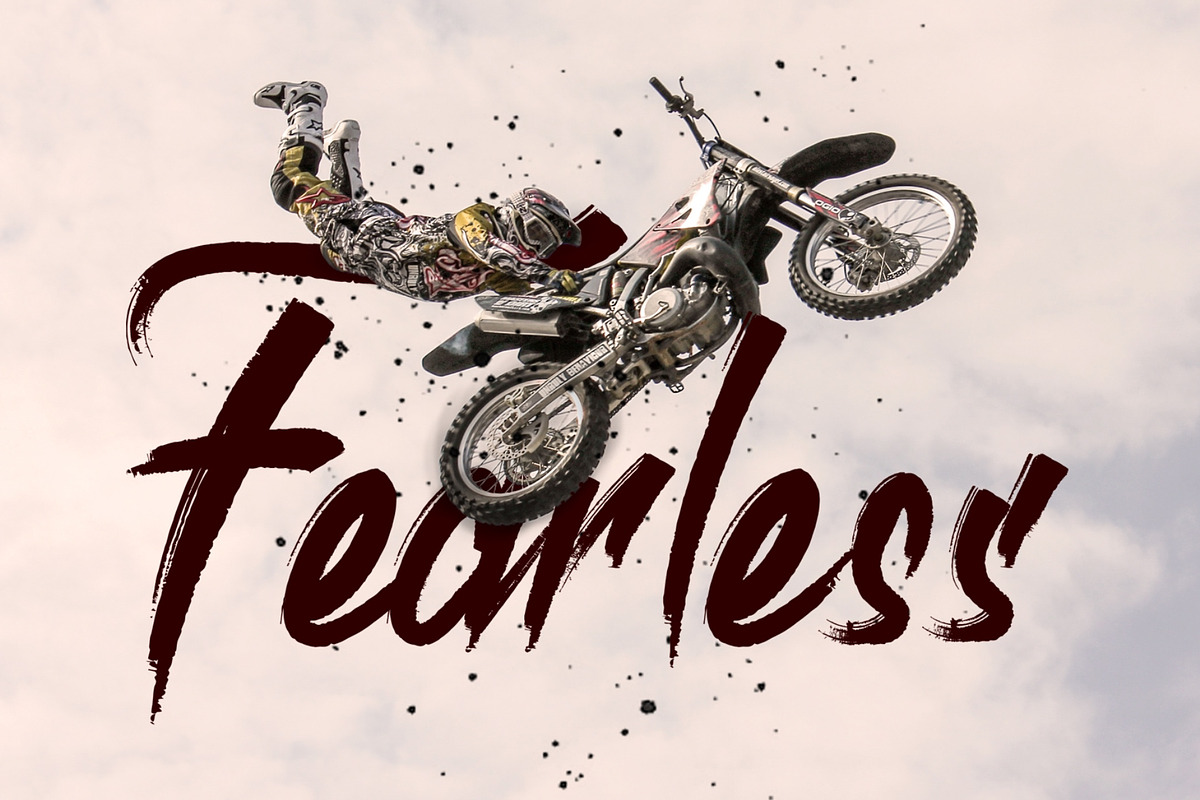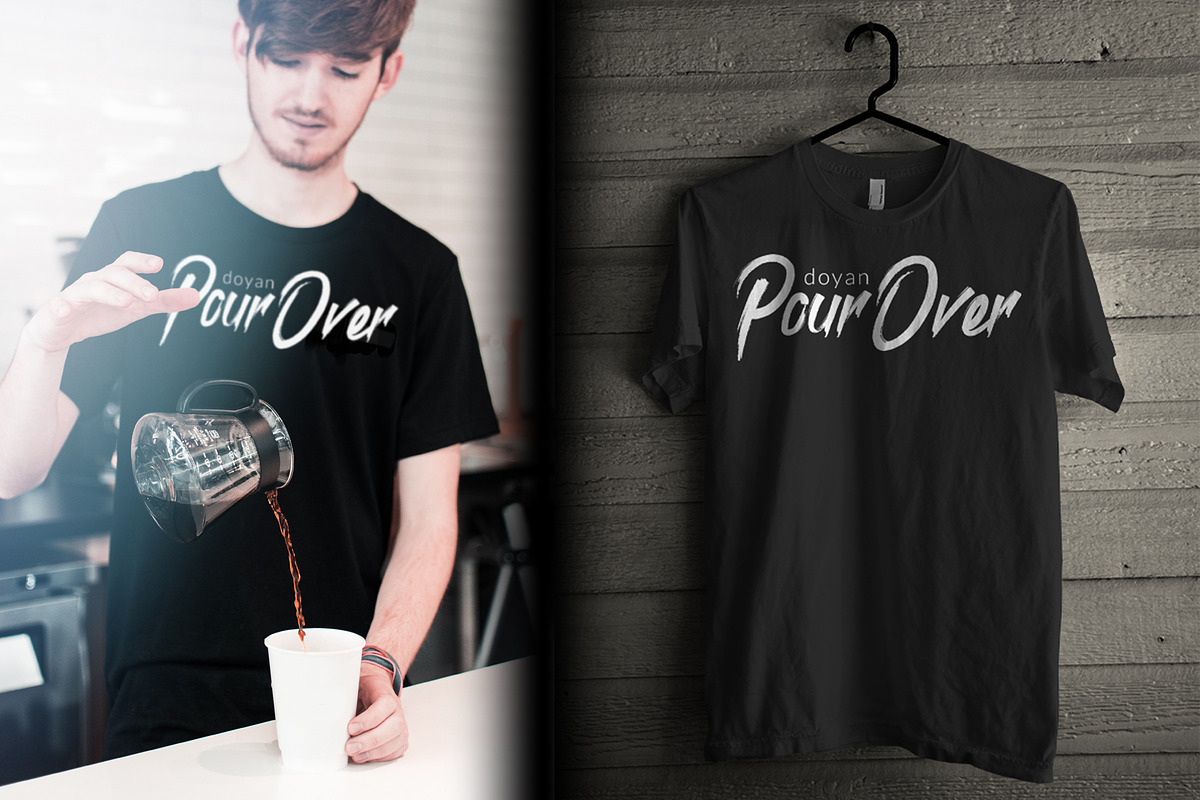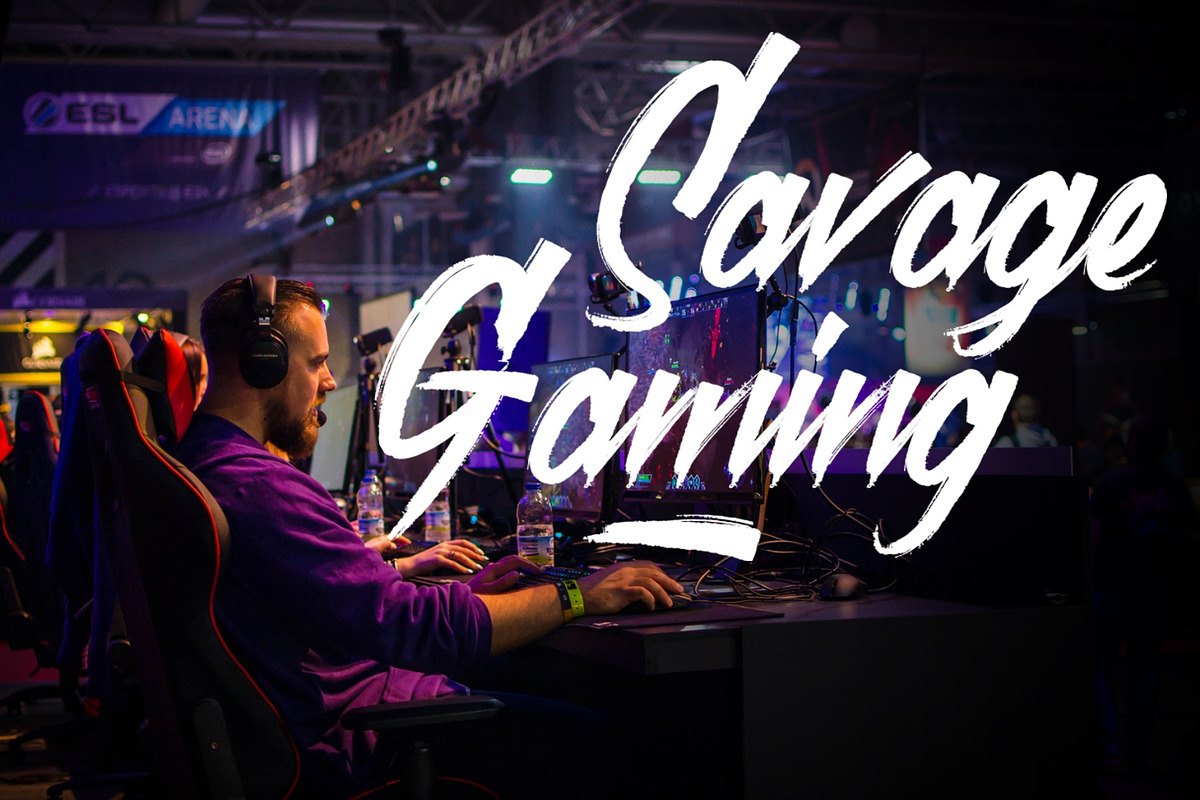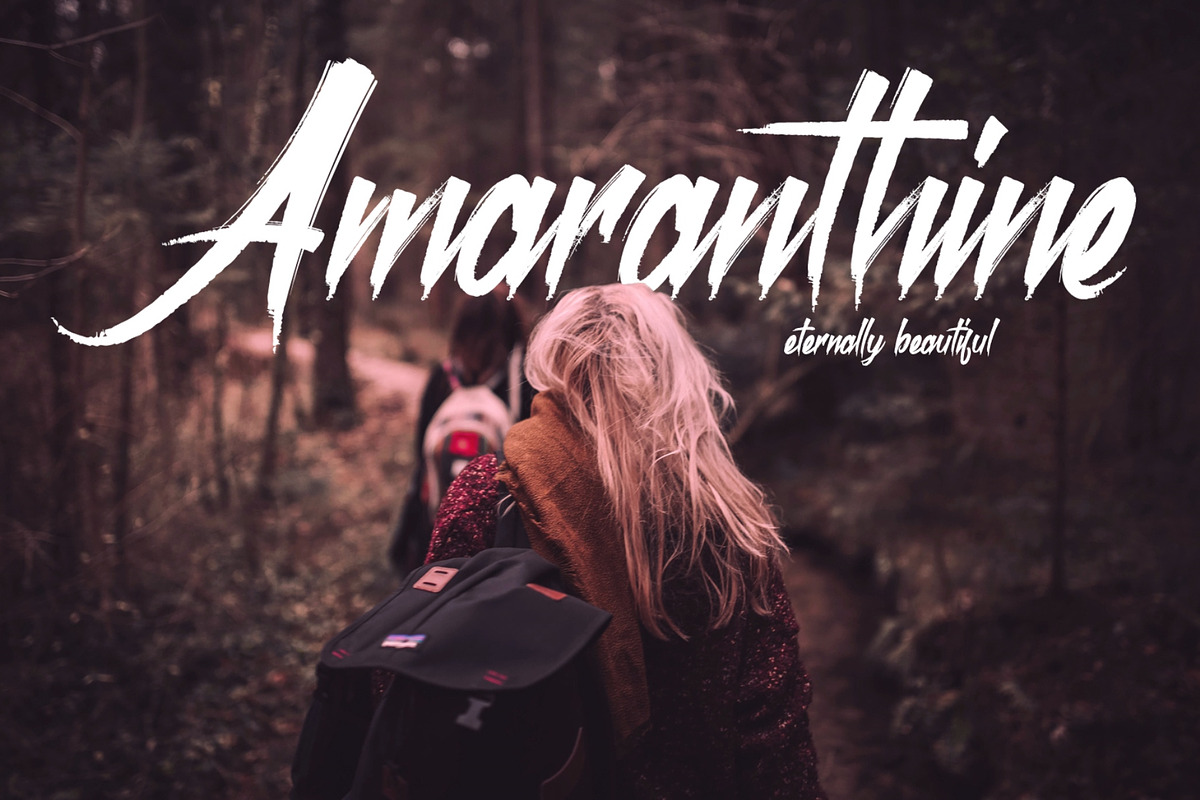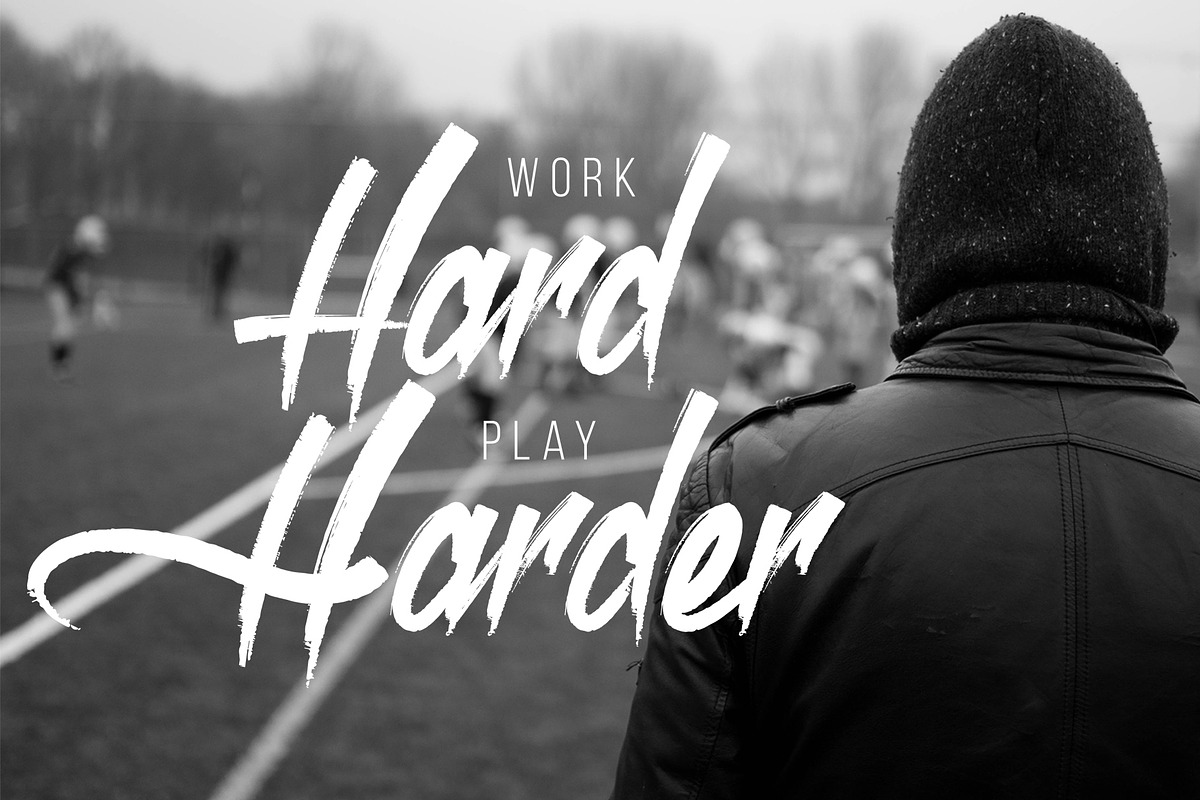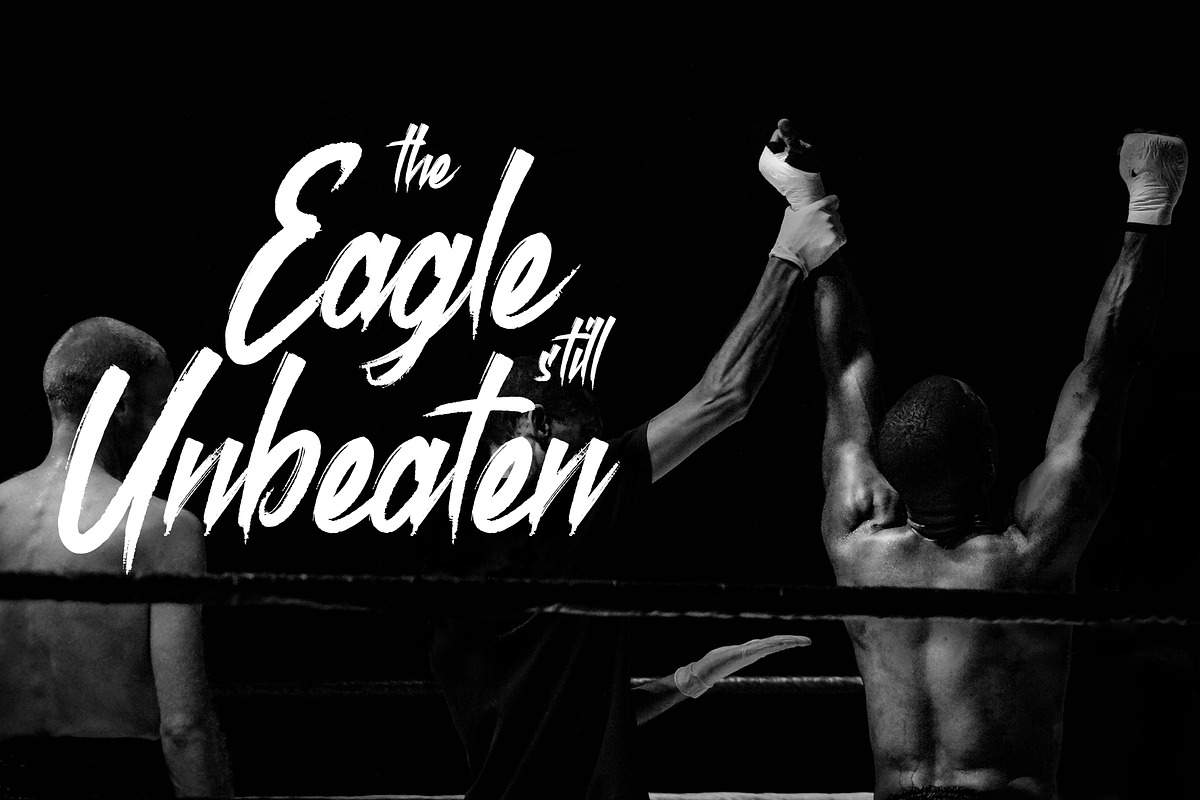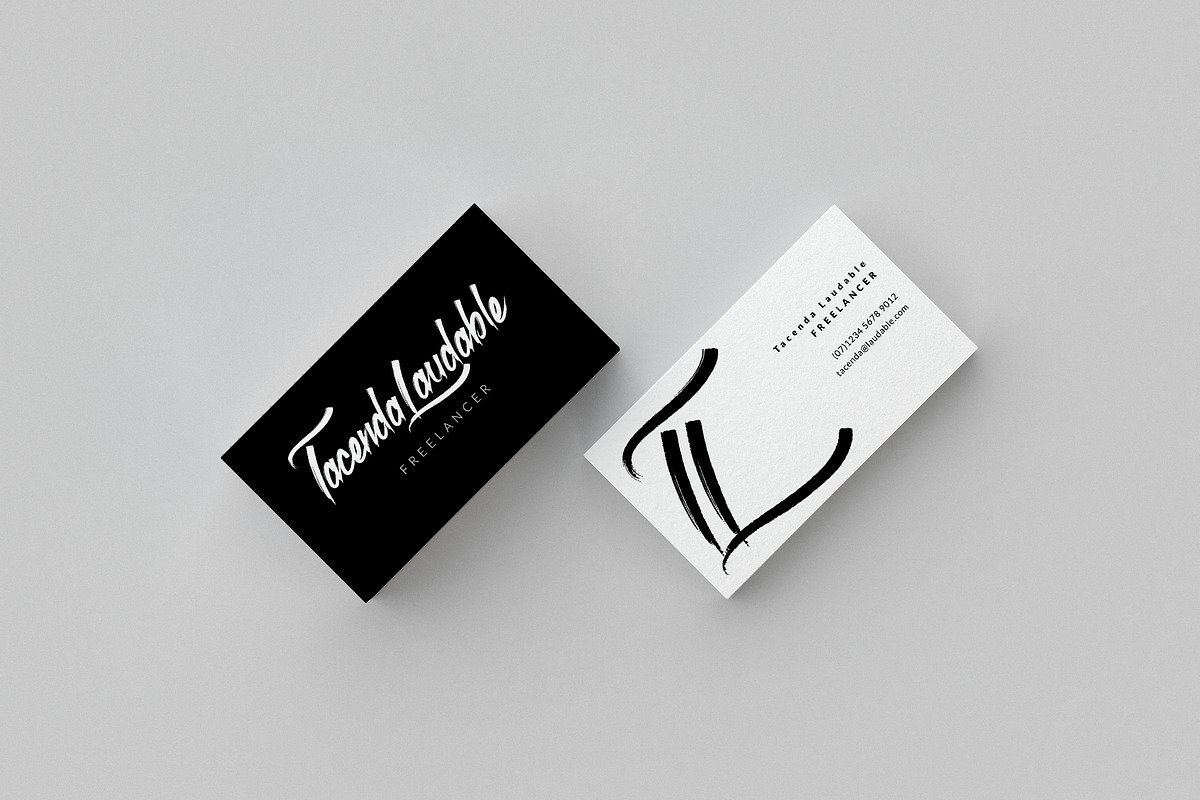
Roastink script rough brush font
Introducing Roastink Script.
Roastink Script is sharp and elegant font script. Comes with many opentype feature, upper and lower case standard character, punctuation and numerals, multilingual characters, ligatures, stylistic alternates, and many more glyph.
Perfect for personal and commercial use your company logo, branding, poster, flyers, greetings, invitation, book cover, quotes, and many more.
Roastink script rough brush font by SemutHitam Creative fits naturally into Branding, posters, packaging, typography.